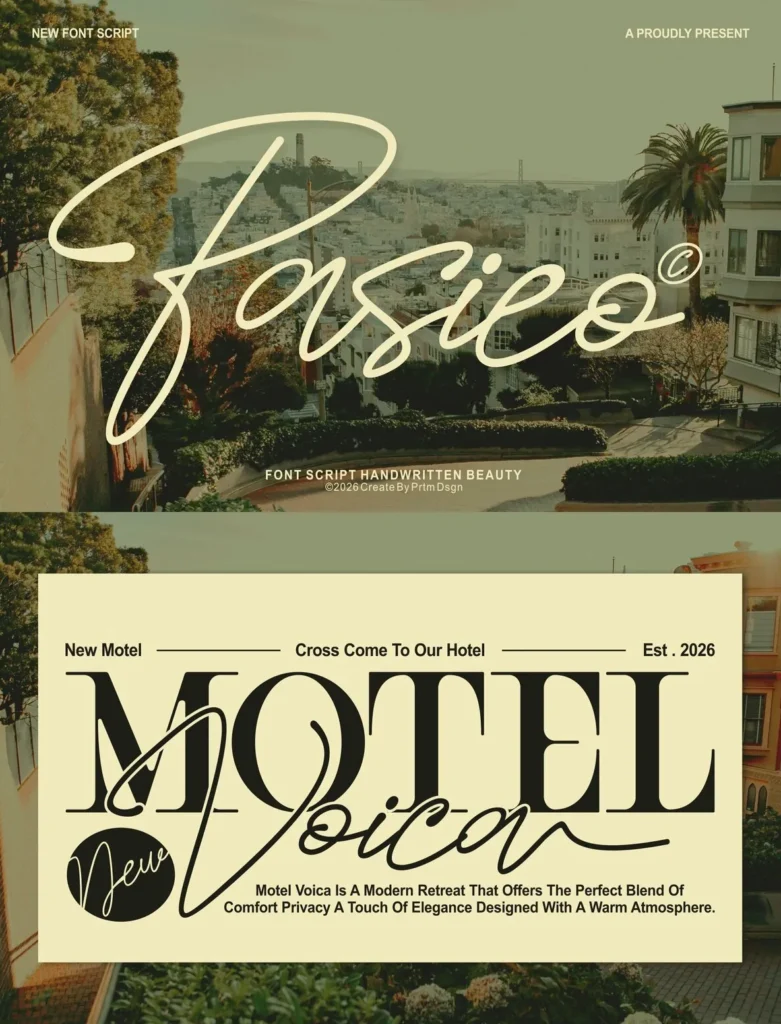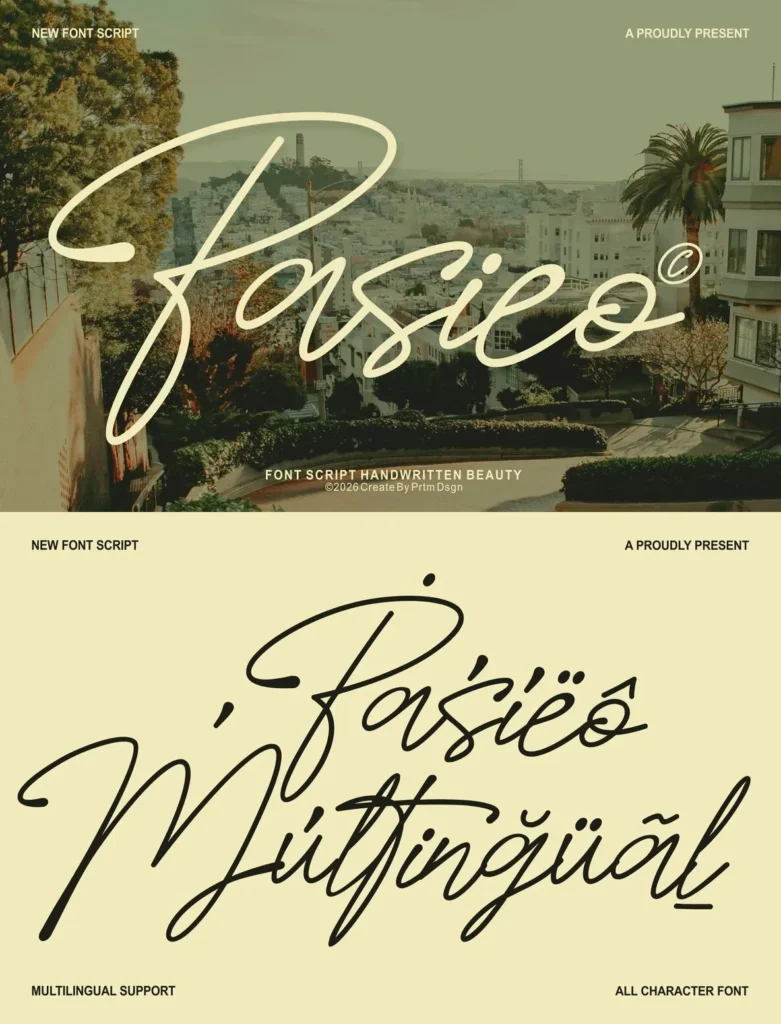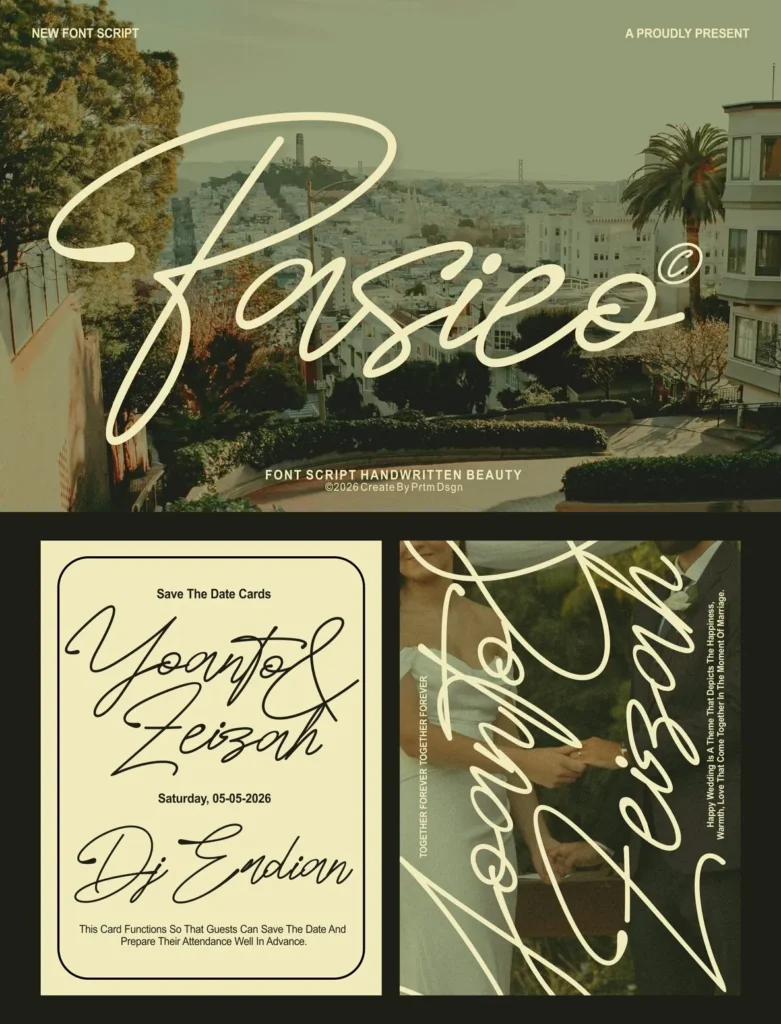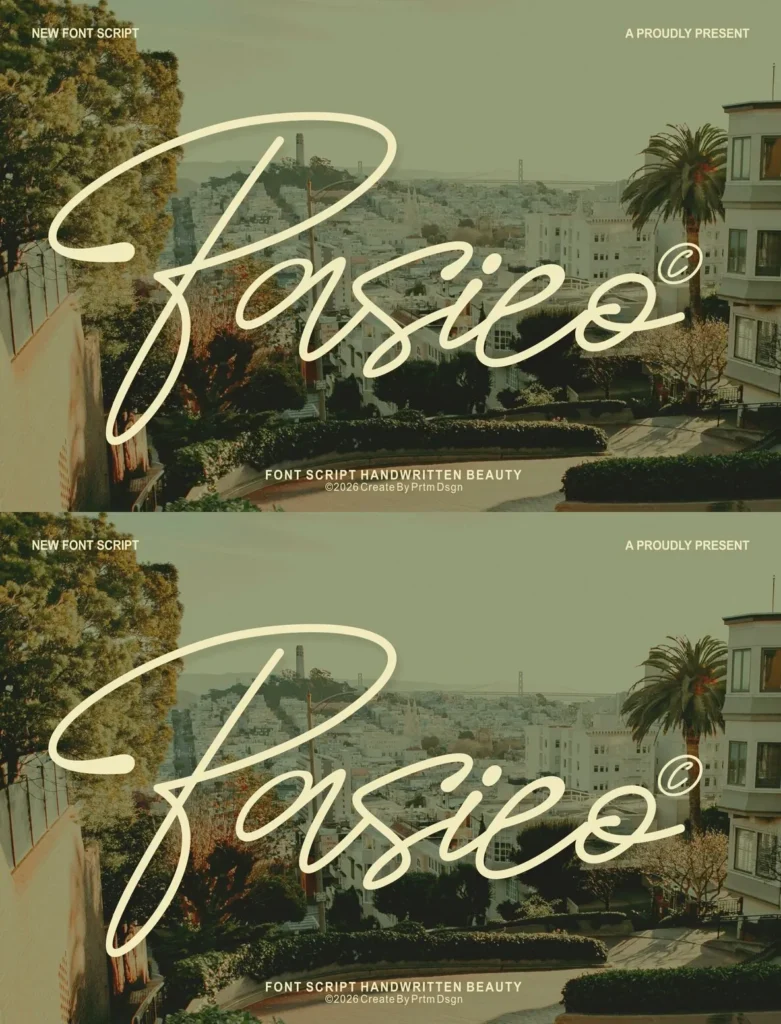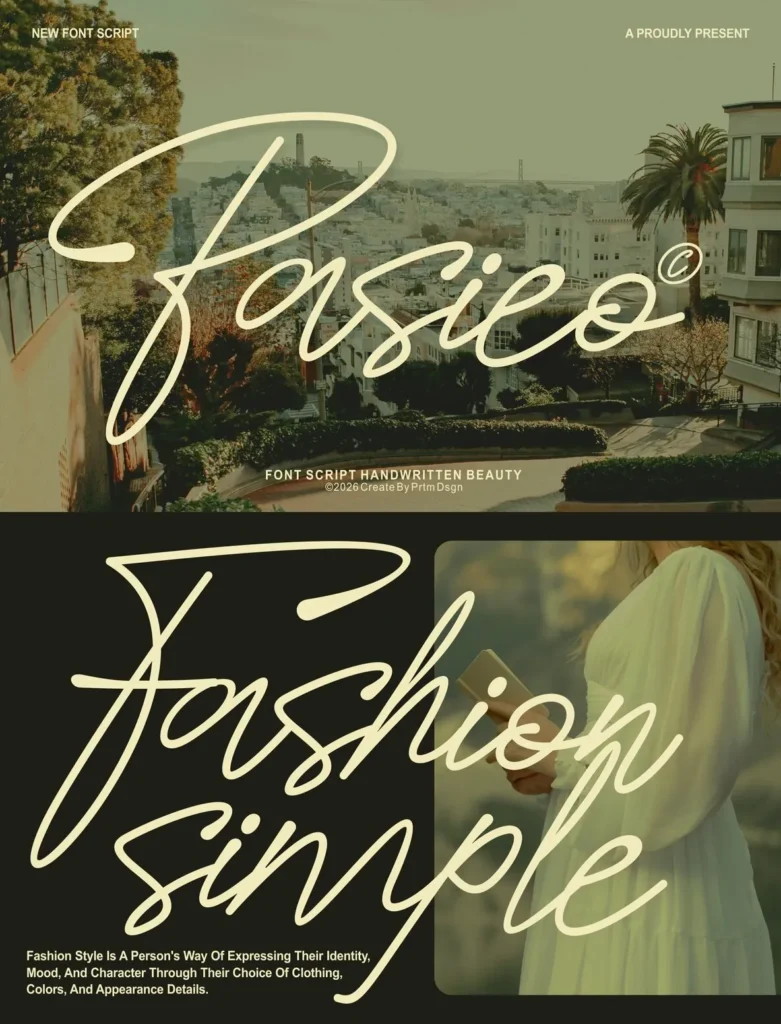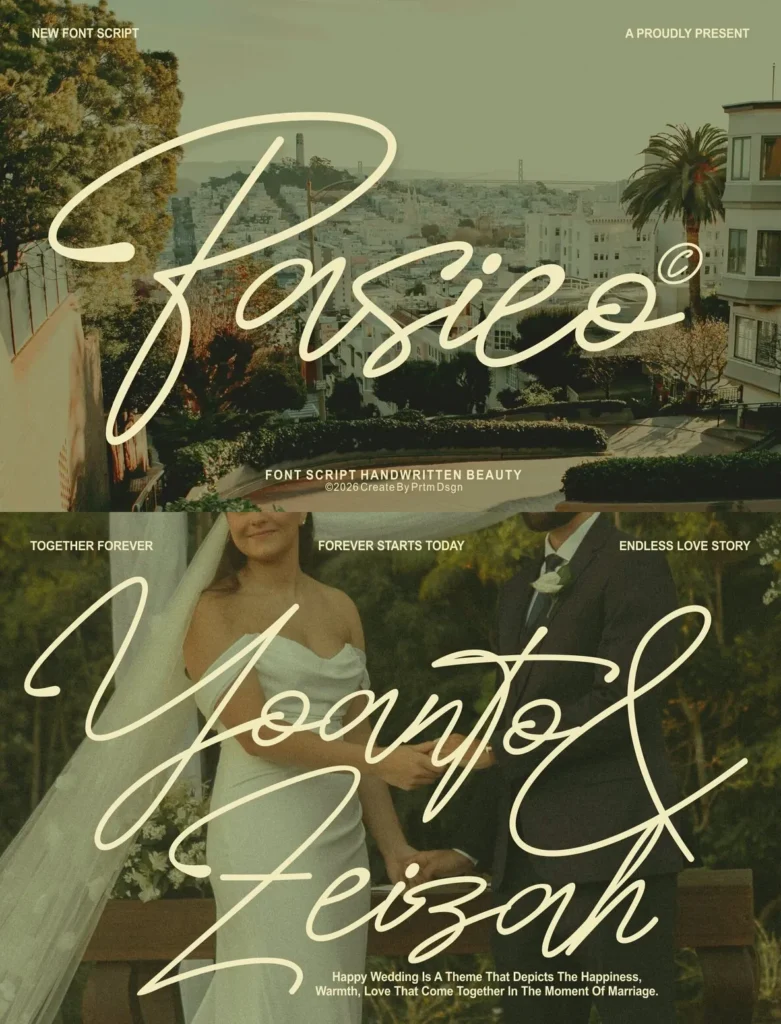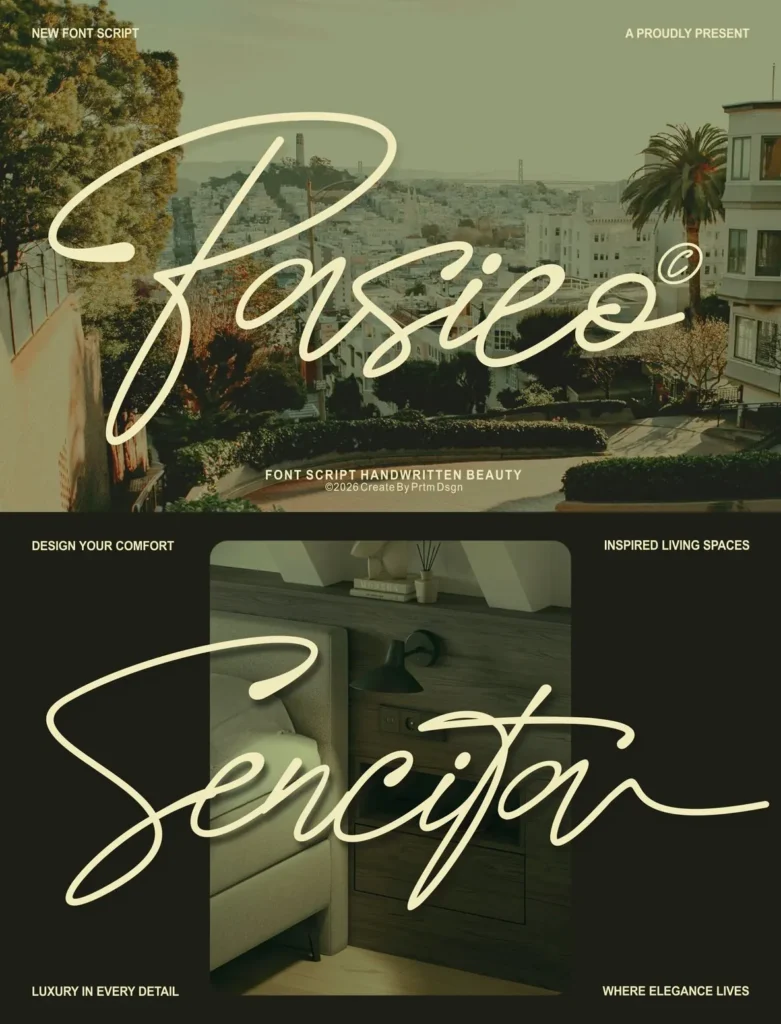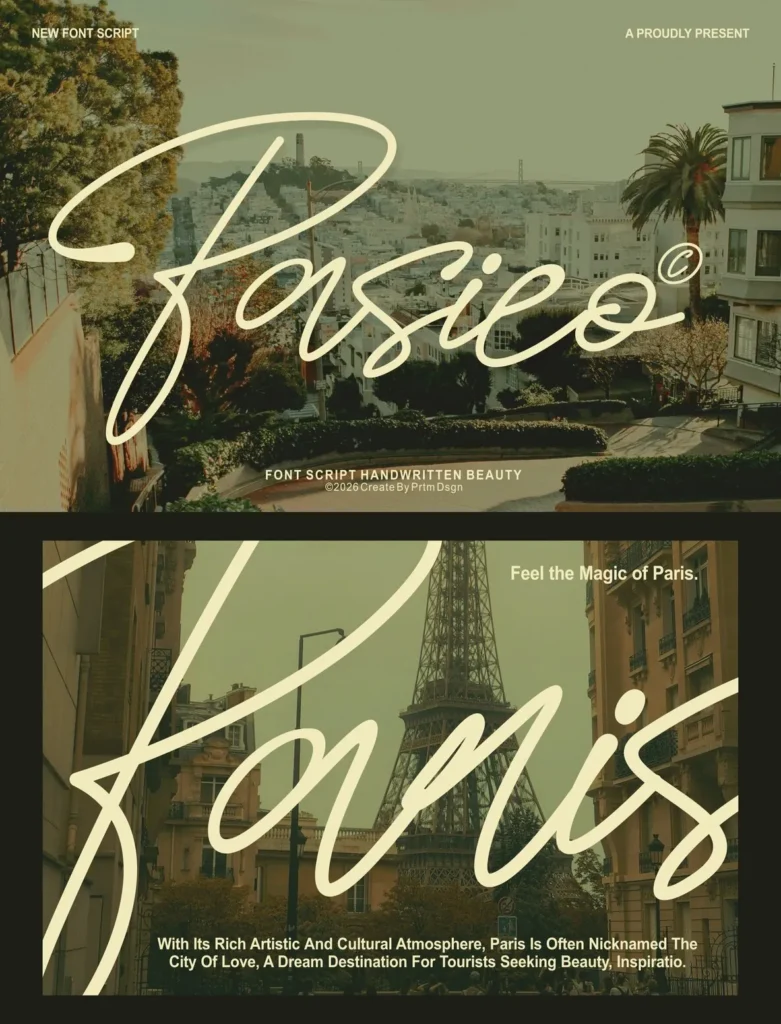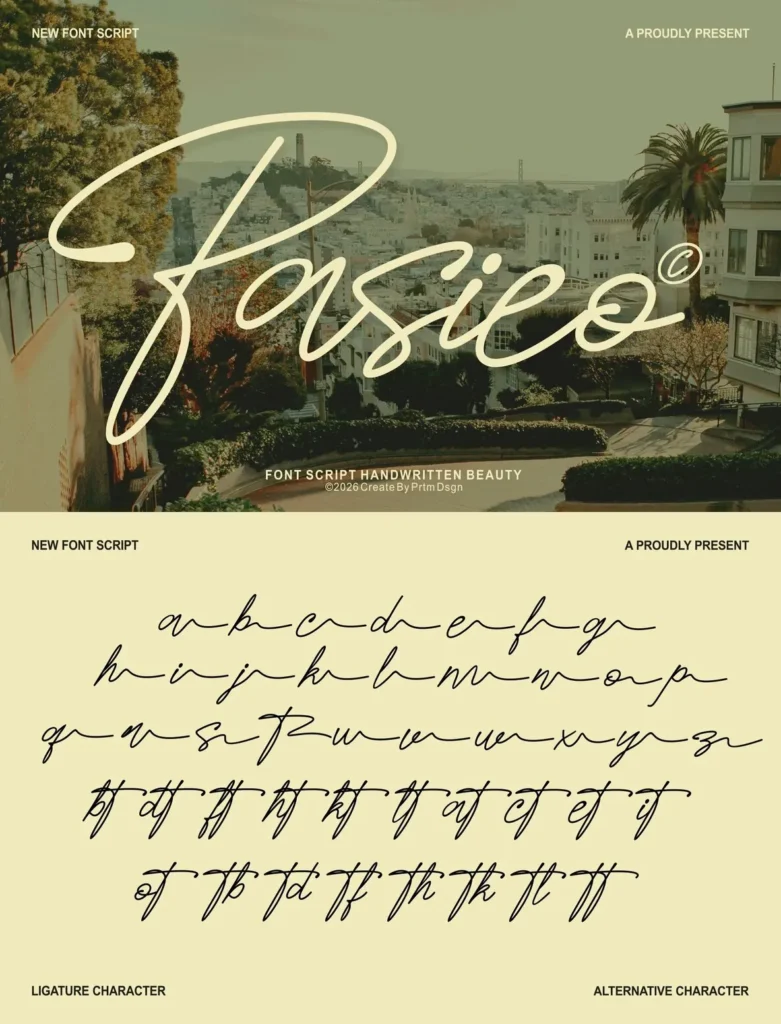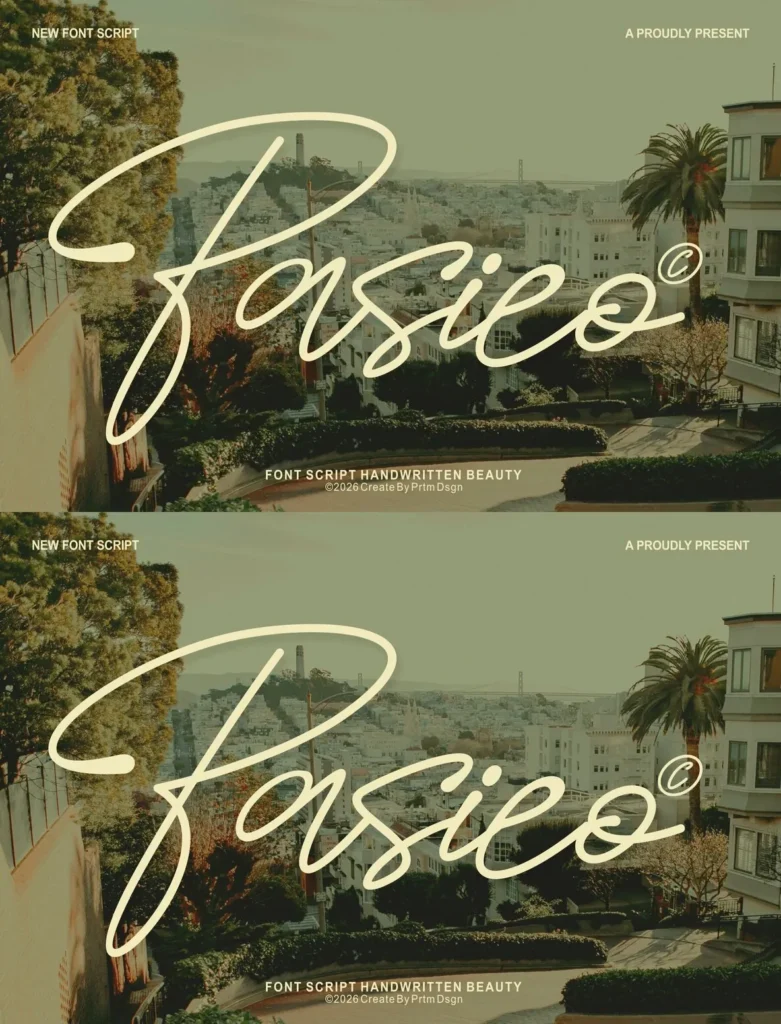
Pasieo — Script Beauty with Poise
Introducing Pasieo — Font Script Handwritten Beauty, a handwritten script font designed with an elegant, refined, and artistic character. Each letter uses natural curves to create a handwritten feel while staying well structured for easy reading. Consistent thin lines give the typeface a light, modern presence, and the flowing letterforms add a luxurious, sophisticated tone.
Pasieo suits design work that needs aesthetics and a personal touch, including wedding invitations, fashion branding, logos, inspirational quotes, and editorial design. Its balance of curvature and style helps create a strong visual identity without losing a soft, exclusive feel. With full character support, including capital letters, lowercase letters, numbers, and symbols, Pasieo gives designers room to explore professional layouts with clarity and grace.
Uppercase
Lowercase
Multilingual Support
Ligature